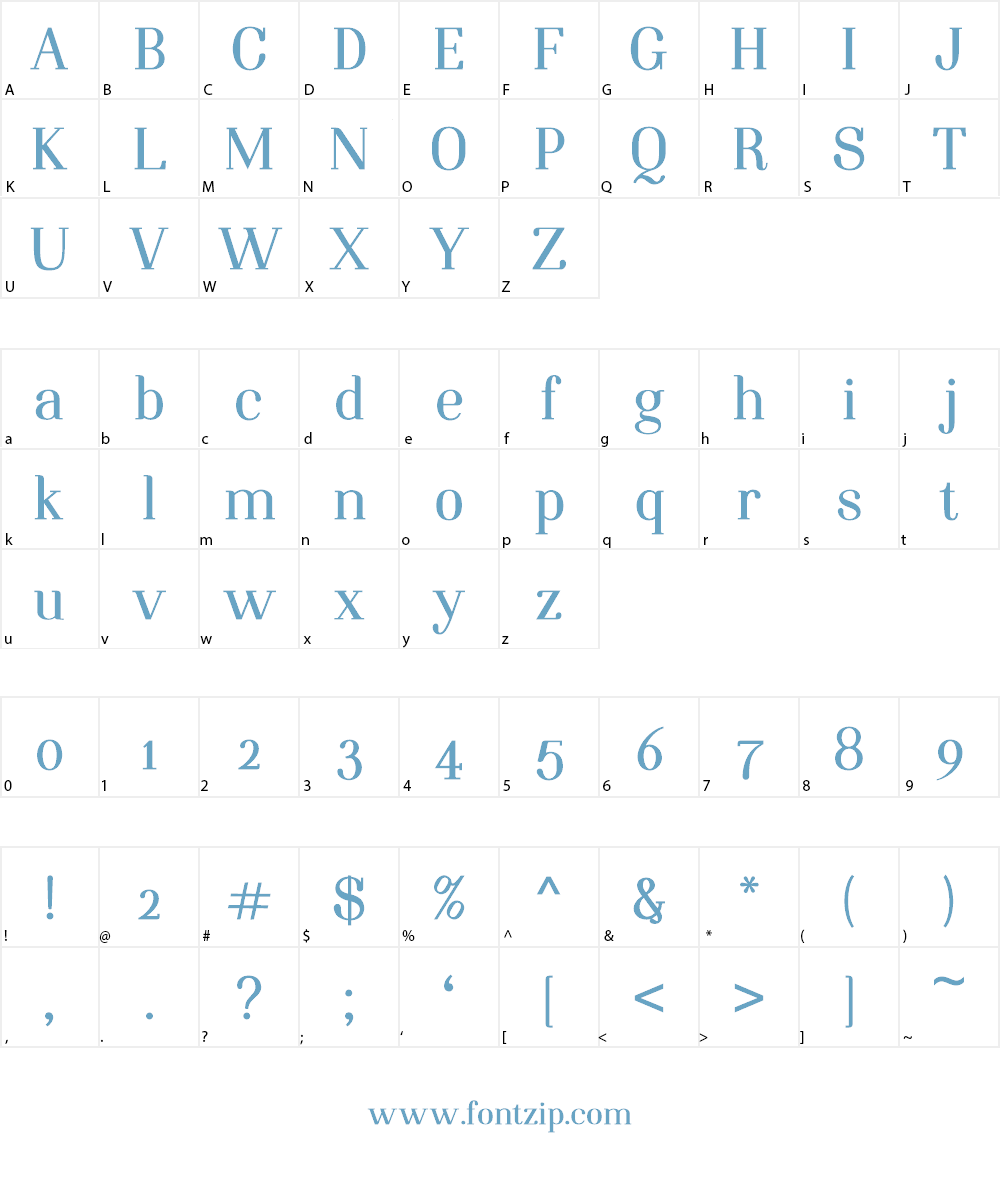
This is a sample of my font "Night Still Comes". It's a serif font in 2 styles: REGULAR & ITALIC and in 2 weights. Each font has over 550 glyphs, including:
>> A-Z | a-z | 0-9 | Punctuation marks | Accents
>> Small caps
>> Ligatures
>> Old style & lining numbers
>> Superscript & subscript numbers and letters
>> Fractions